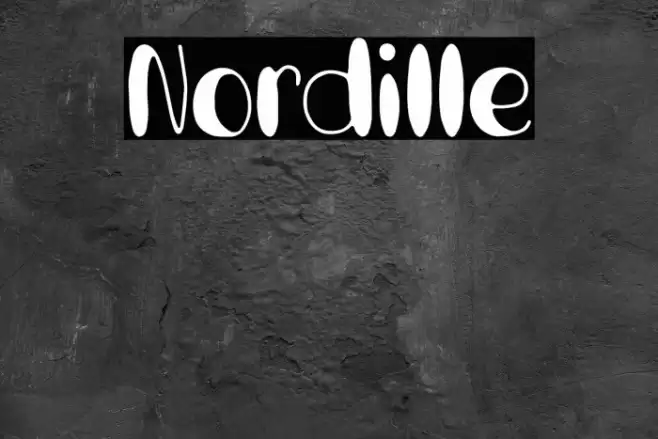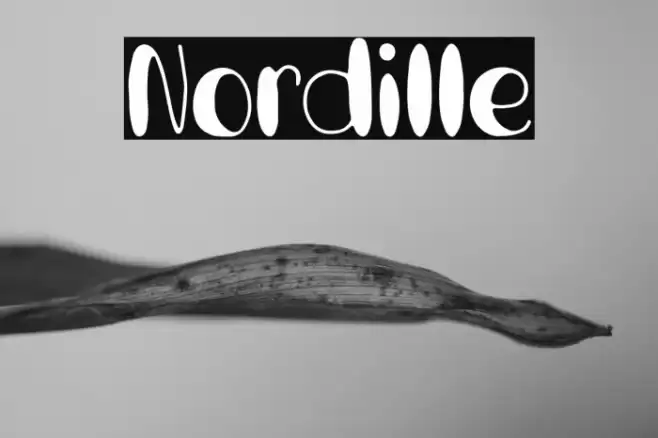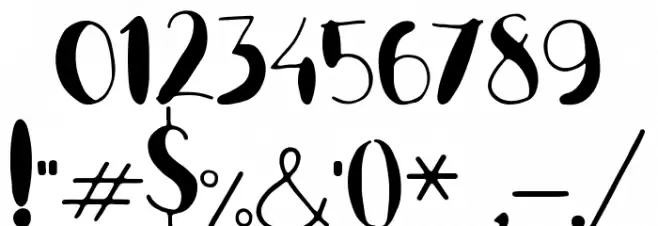
Nordille Font
Nordille Description
This font features a playful and artistic style with a handwritten feel. The characters are bold and have a whimsical, flowing appearance, characterized by varying stroke widths that add a dynamic and lively touch. The uppercase letters are particularly bold and rounded, while the lowercase letters maintain a consistent flow with slightly more delicate strokes. The numbers and special characters follow the same playful aesthetic, making the font suitable for creative and informal projects. The overall design is both eye-catching and approachable, perfect for adding a personal touch to any design.
A playful, handwritten font with bold, flowing strokes and a whimsical style from Regular fonts.
- Proposed Projects: Ideal for greeting cards, invitations, children's books, and creative branding projects.
- Use Case: Logos, Headlines, Creative projects